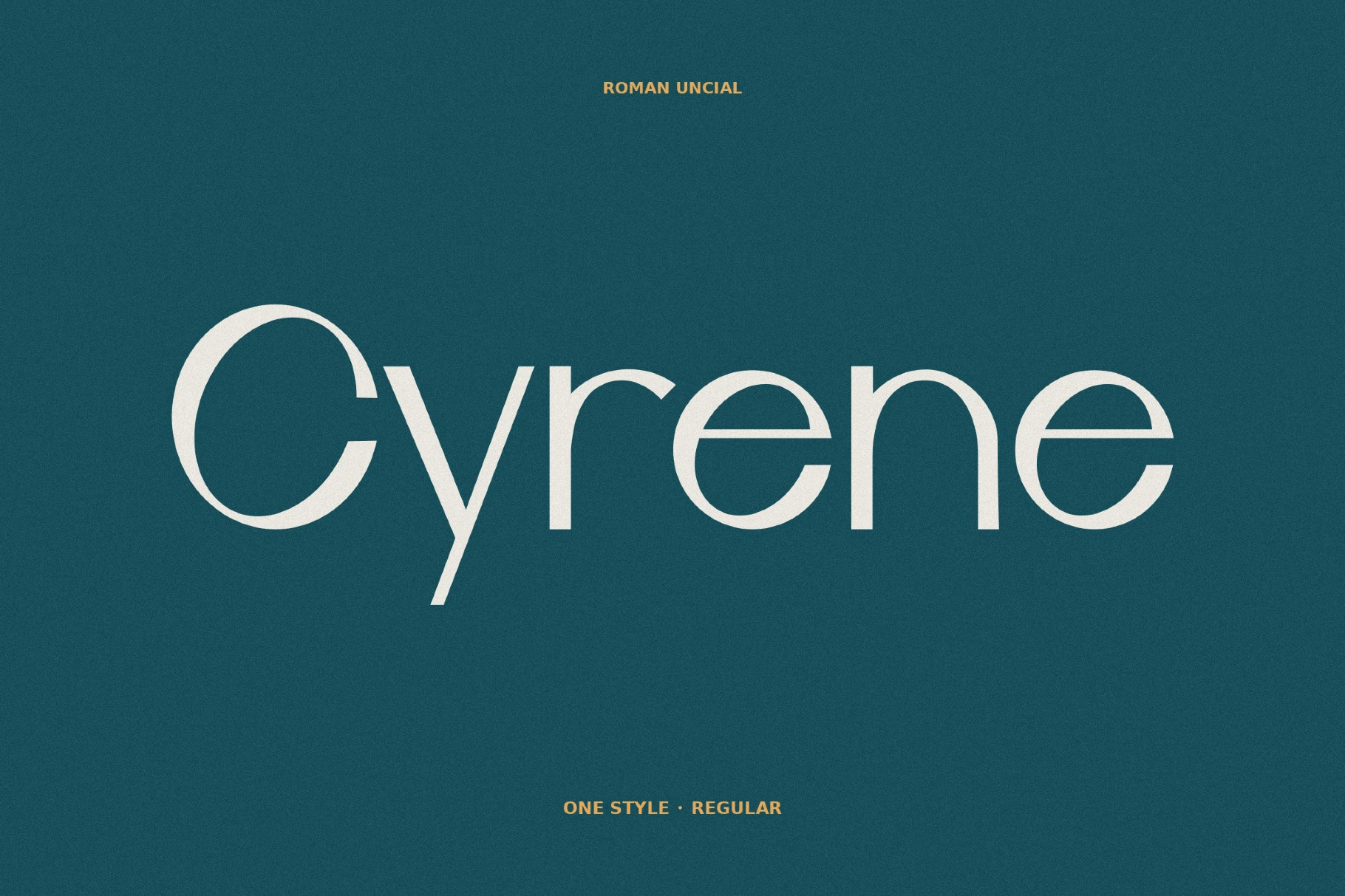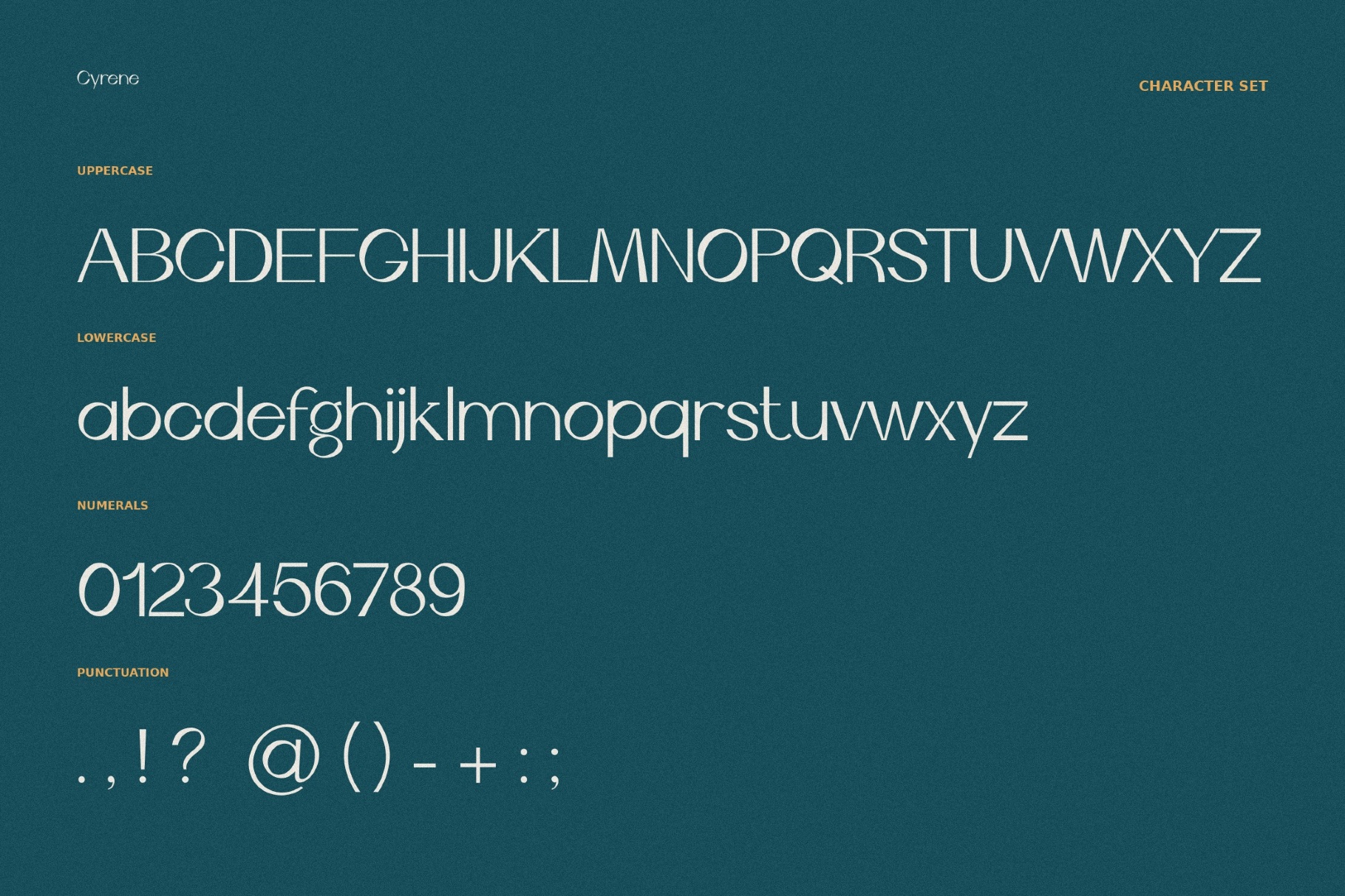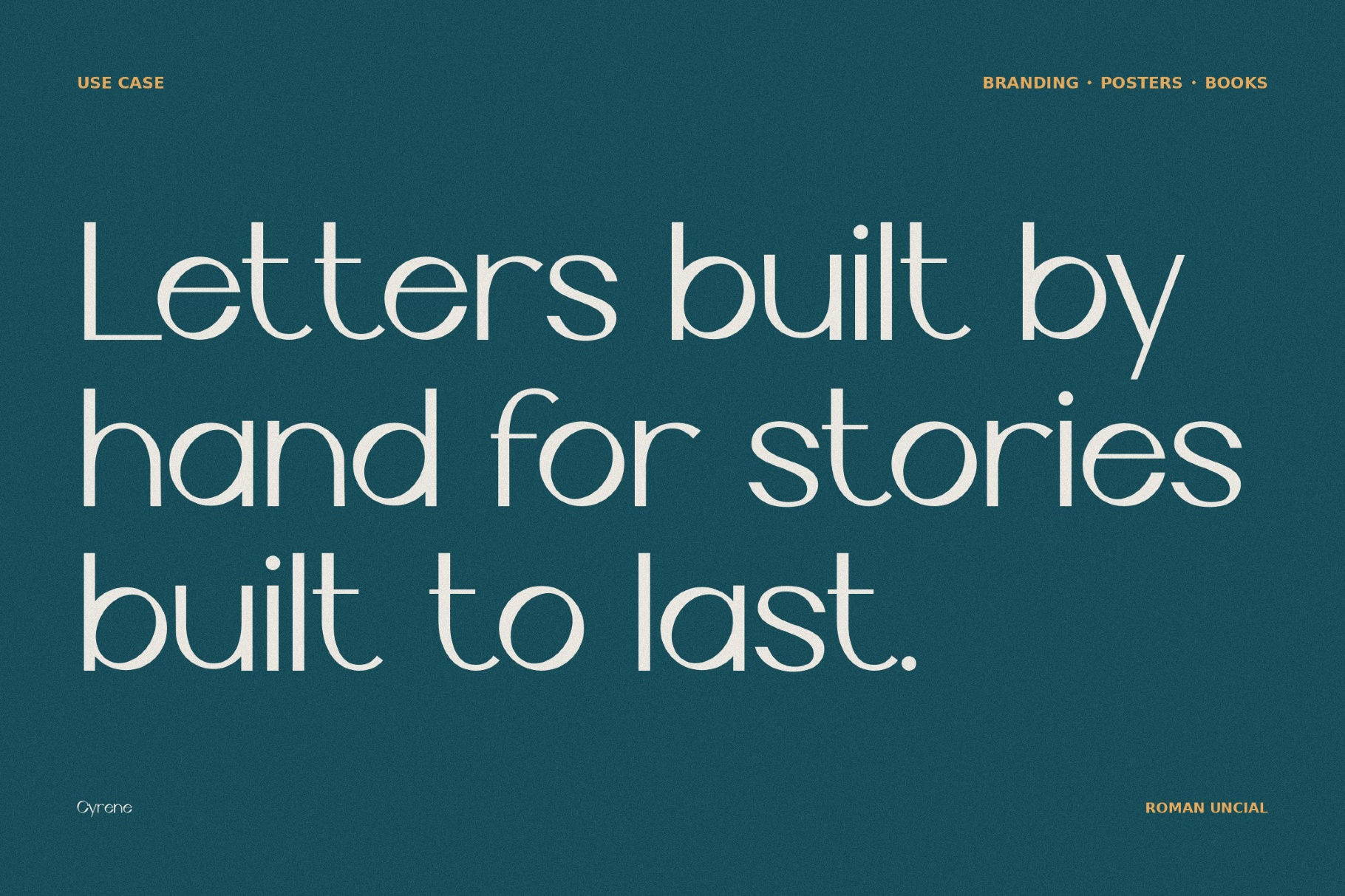
Cyrene Fashion Font
Cyrene Regular
Cyrene has the confidence of a literary magazine, a small museum sign, or a restaurant menu. Its low-contrast sans, with a rounded rhythm, soft pacing, and an Italian editorial sensibility, keeps the text clear and warm.
This fantasy-bound font is well-suited to layouts that need elegance and readability: poetry books, cultural identities, boutique packaging, exhibition posters, travel editorials, restaurant menus, social media quotes, gallery programs, and stationery systems.
- uppercase and lowercase letters;
- numbers, punctuation, and symbols;
- multilingual support across the basic Latin script.